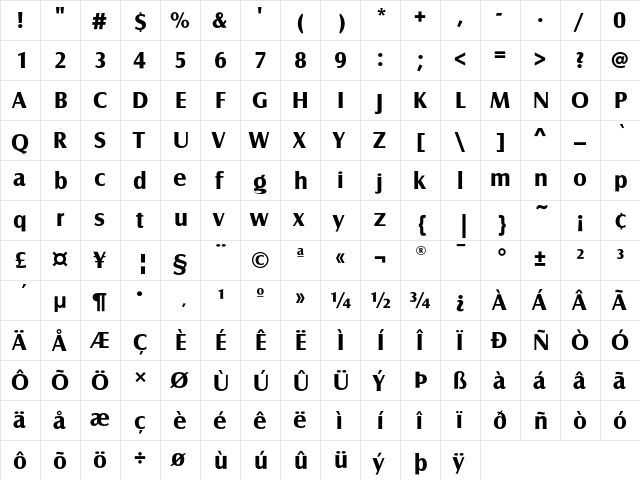
CastleEF Bold
Design Context for CastleEF Typeface
CastleEF takes a measured approach to typography — its balanced proportions and neutral character make it a reliable workhorse for both digital and print work. The heavy weight commands attention and anchors typographic hierarchies.